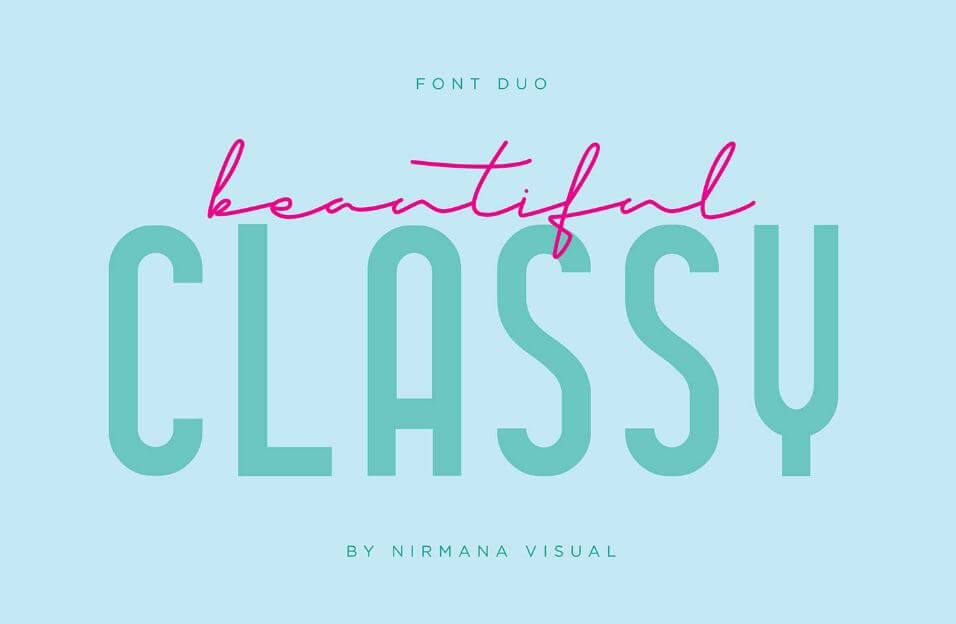
Hi anyone! Introducing a classy font! It’s far changed into designed and stocks via Nirmala visible. Classy splendor font duo, an elegant, current pair of script and sans fonts.
It’s far a true contact style typeface. It designs in amazing and shared every other font fashion through omotu. It is similar to metropolis font has become an tour DE pressure in steel kind making because this reputedly informal script joined perfectly.